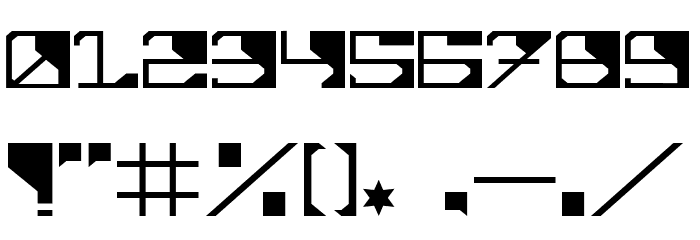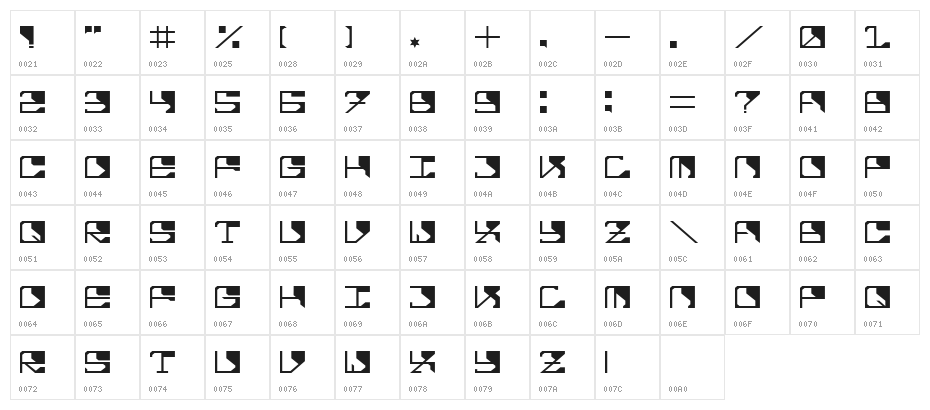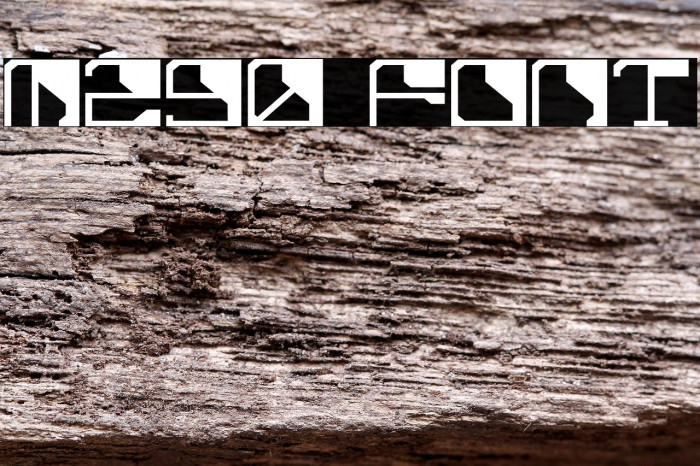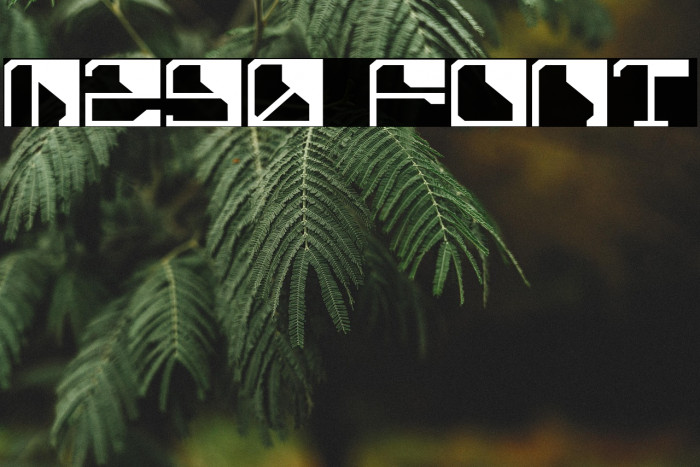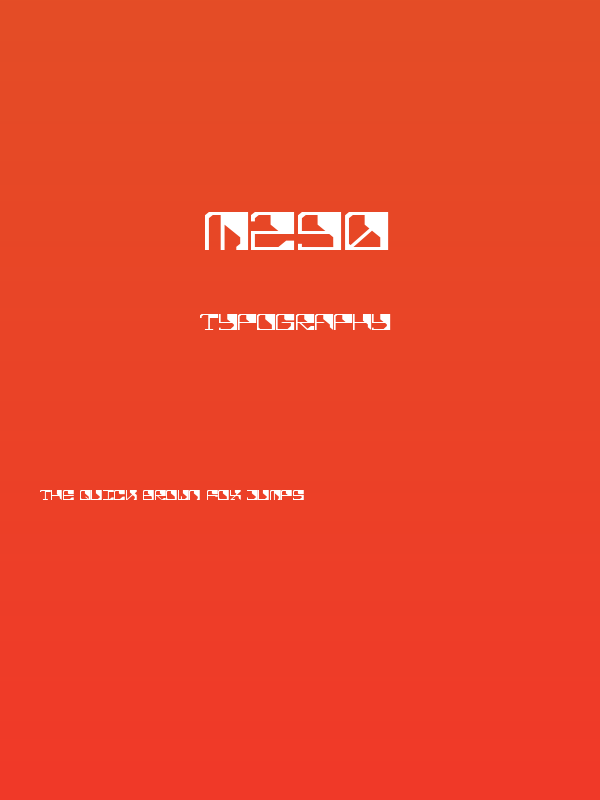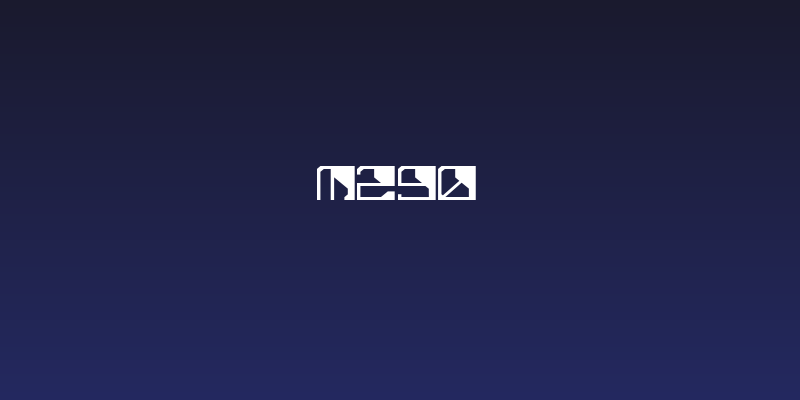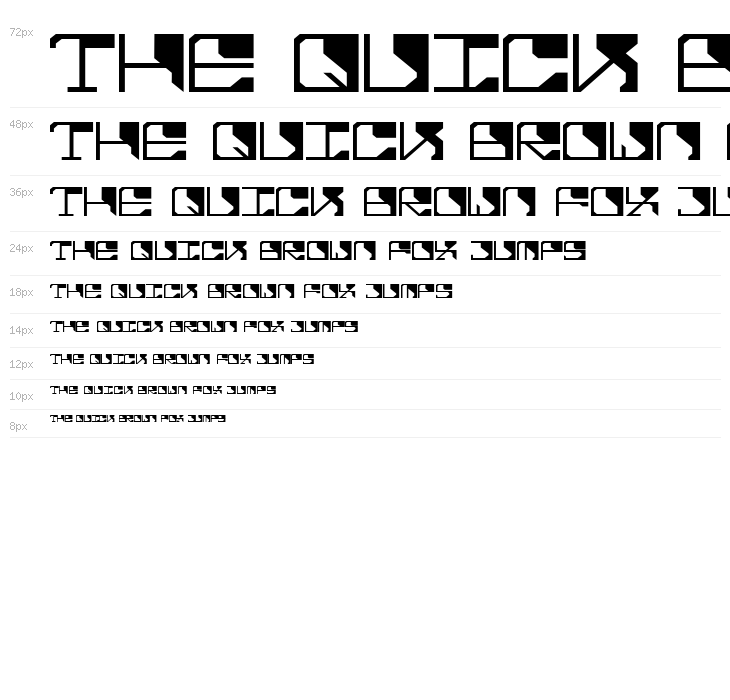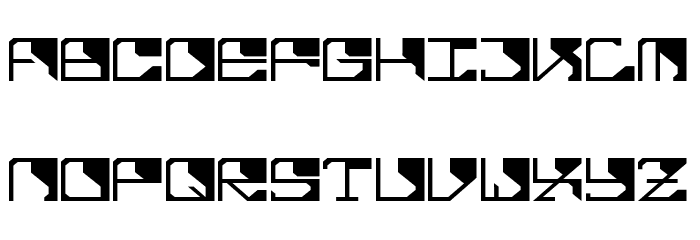
M290 Font
M290 Description
This font features a bold, geometric design with a futuristic and industrial feel. The characters are constructed with sharp angles and cut-out sections, creating a stencil-like appearance. The uppercase and lowercase letters share a consistent style, emphasizing a modern and edgy aesthetic. The numerals and special characters maintain this theme, offering a cohesive look across all glyphs. The font's unique structure makes it stand out, ideal for projects that require a strong visual impact.
| Proposed Projects | Ideal for branding, posters, album covers, and any project needing a modern, industrial look. |